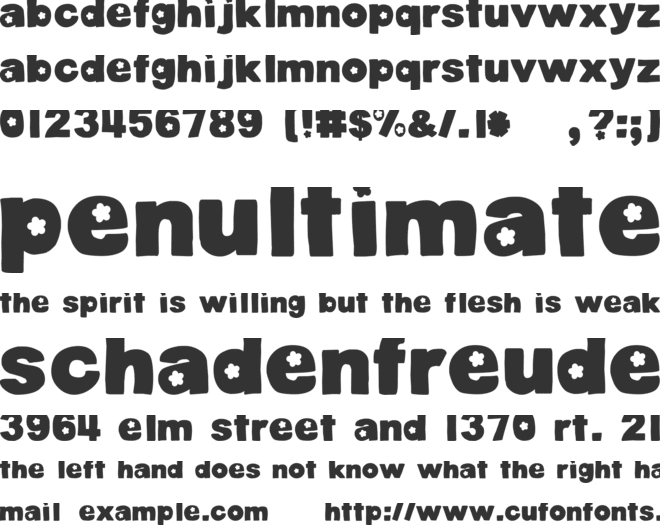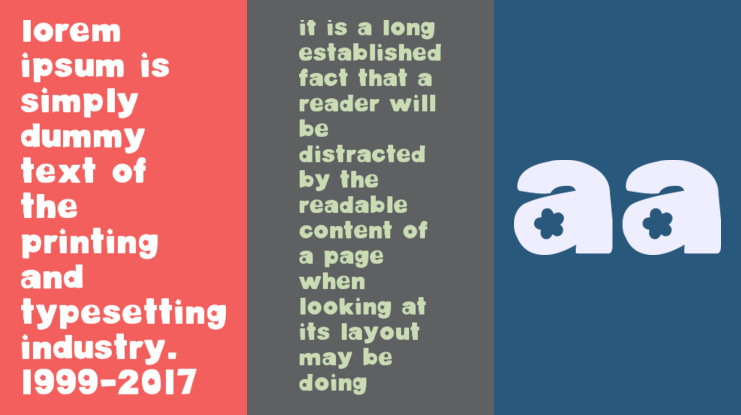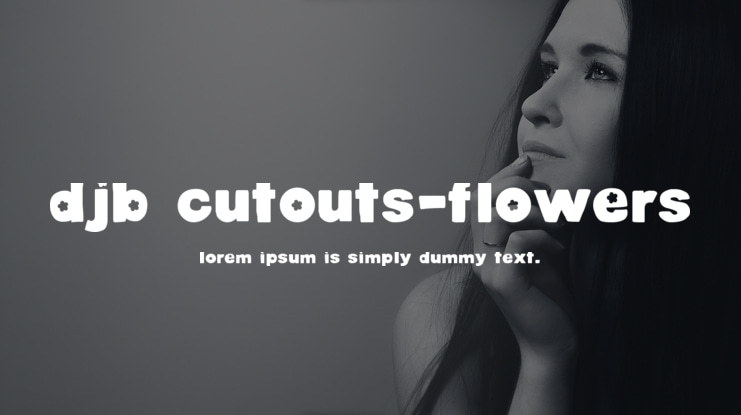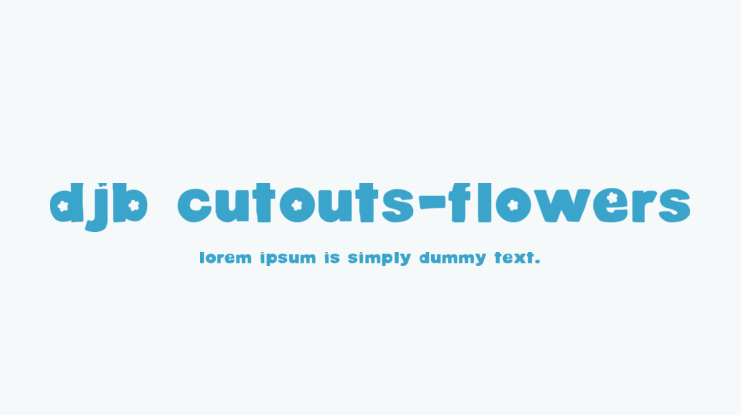
DJB Cutouts-Flowers Font Family
Darcy Baldwin (djbfontography)
Remember those letter cutouts your kids would do in elementary school - not quite perfect, but so stinkin' cute? Here are three fonts reminiscent of those hand-cut letters with cute little cutouts in the centers of stars, hearts and flowers, each in their own separate font.